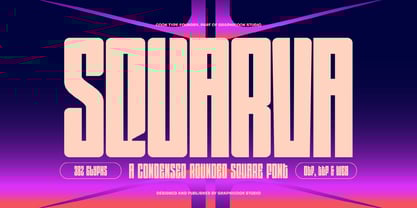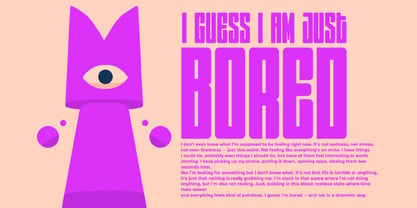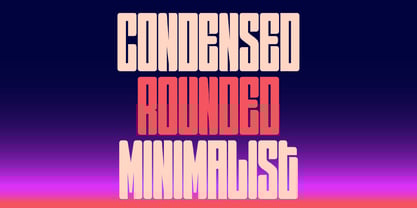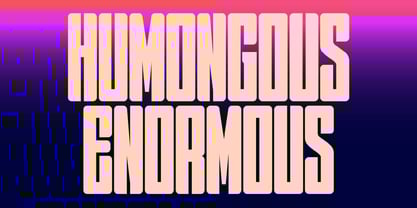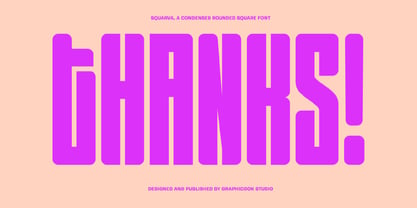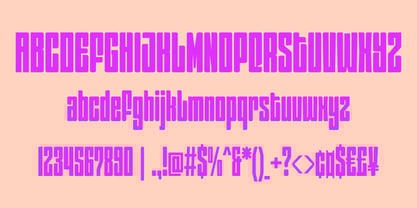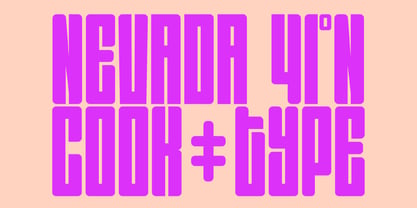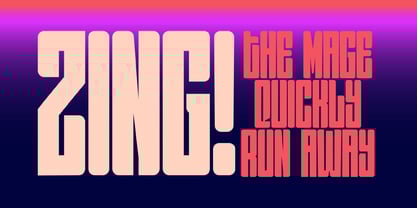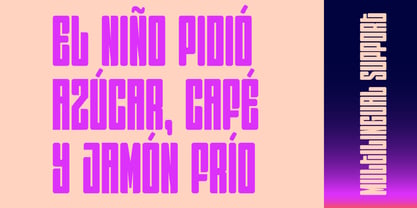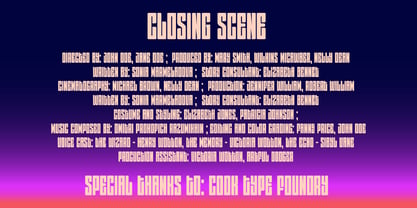
Cook Squarva
by Graphicook Studio
The Cook Squarva Font Family was designed by Gumilar Febriansyah and published by Graphicook Studio. Cook Squarva contains 1 styles.
Squarva is a condensed sans-serif font with a modern design. Perfect for games, tech projects, or futuristic-themed visuals.
It is perfect for headlines, logotypes, magazines, packaging, quotes, movies, games, cover albums, book covers, and flyers, it's a perfect solution for creating eye-catching designs that stand out in any context.